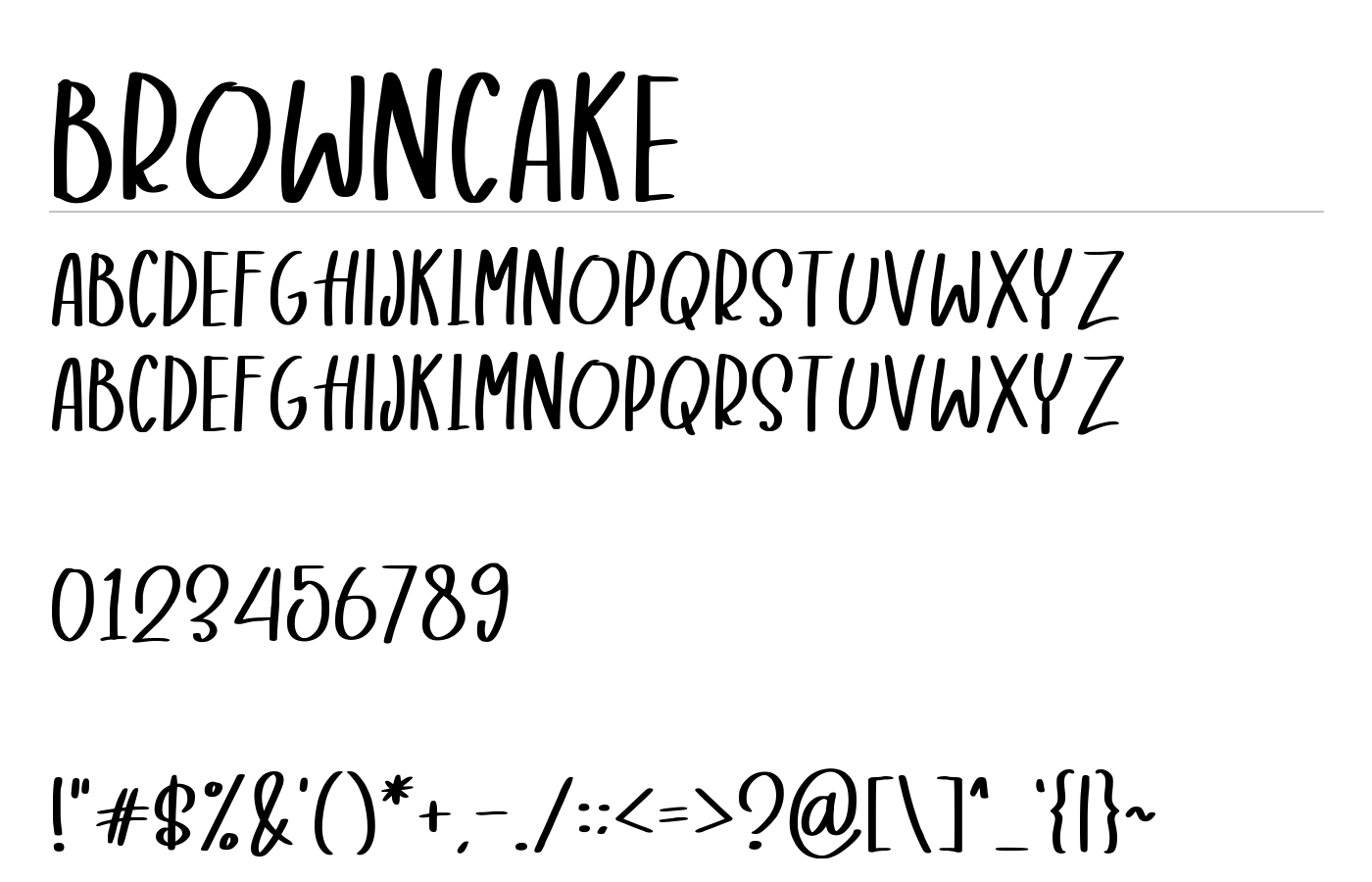
Browncake is a playful and casual handwritten sans serif font with a friendly, relaxed vibe. Its tall, slightly irregular letterforms and moderate contrast give it an approachable, organic feel perfect for informal branding, invitations, or creative projects that seek warmth and personality. This font works well for headlines and display use where a personal touch is desired, adding charm and character without compromising readability.
Browncake Font
About Browncake Font